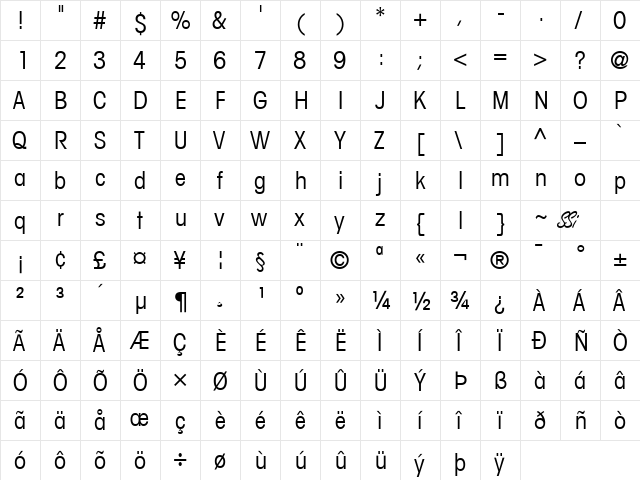
Trendex Condensed SSi Condensed
Design Context for Trendex Condensed SSi Typeface
Trendex Condensed SSi is a composed and adaptable typeface that performs quietly and consistently across a wide range of design contexts. Its narrow stance lets it pack a punch even in space-constrained designs.